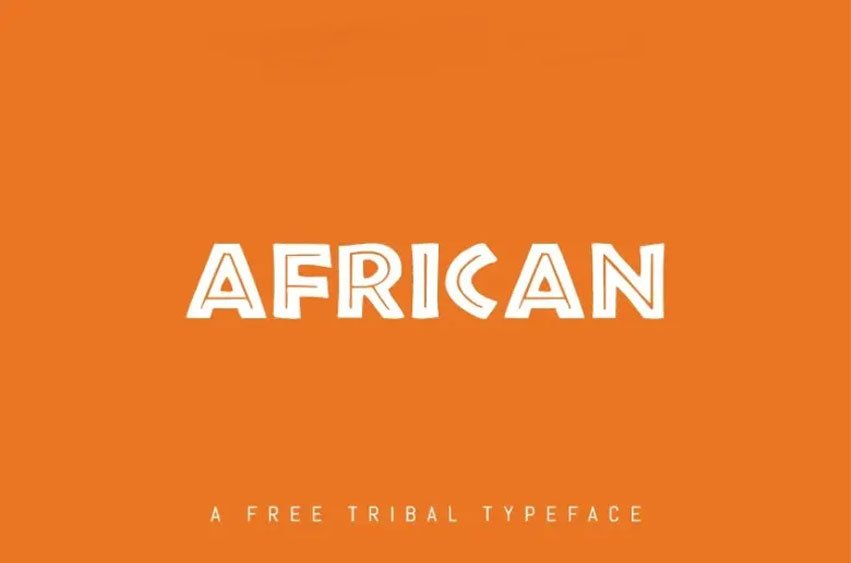
African Font is an enjoyable, attractive and distinct display typeface featuring an ethnic/tribal look designed by Allen R. Walden for use freely in commercial or personal projects. Composed entirely of uppercase numbers and letters as well as punctuation marks, African Font is easily customizable for commercial or personal use.
Logotypes, branding contemporary advertising designs, comics posters and book covers titles, DIY craft projects blog posts cards as well as custom cups pillows t-shirts are just some of the many projects suited to its use.